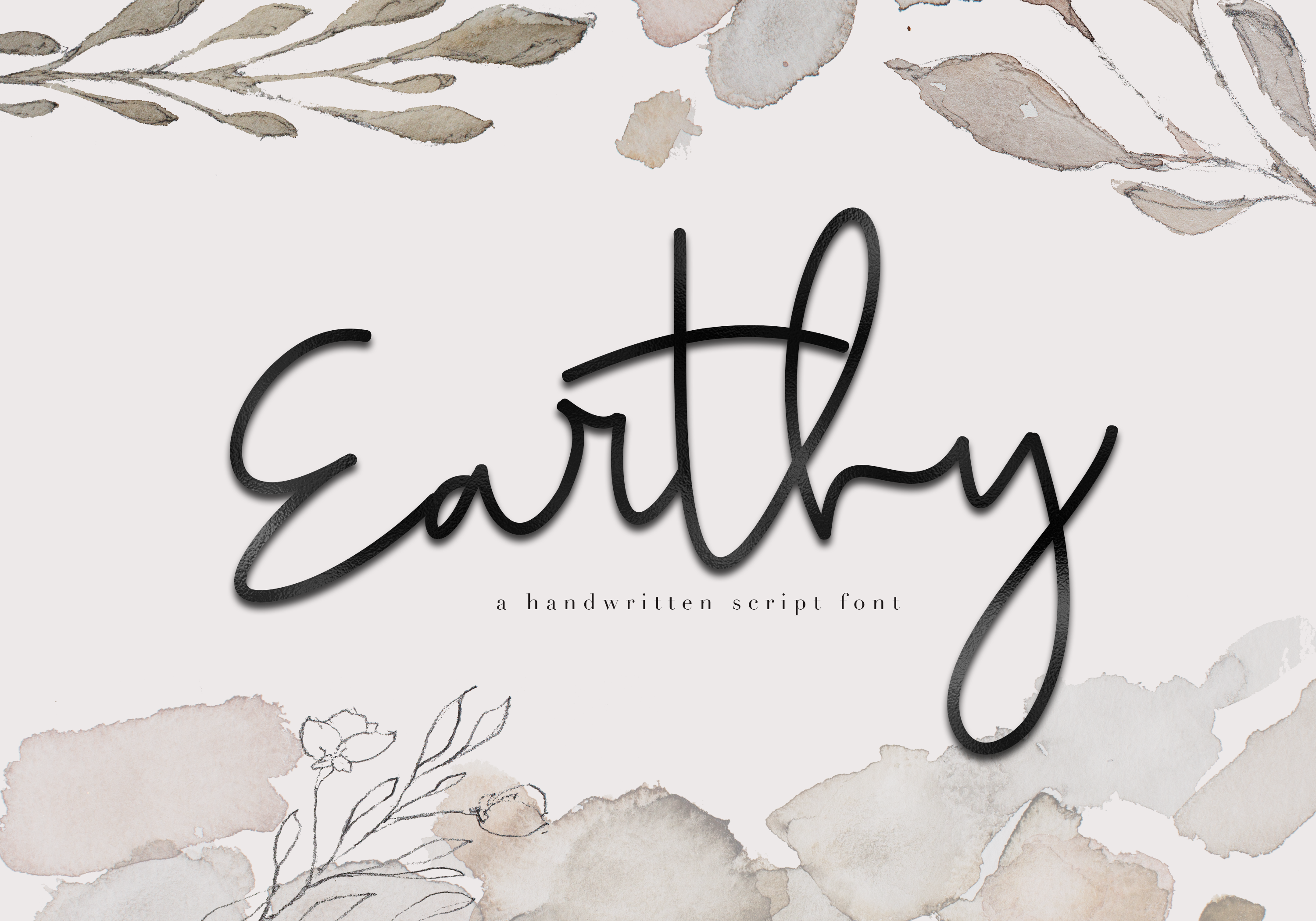
Earthy is a delicate handwritten script.
This font is perfect for headings, blog titles, logos, brandings, invitations and more!
This font does include accent characters.